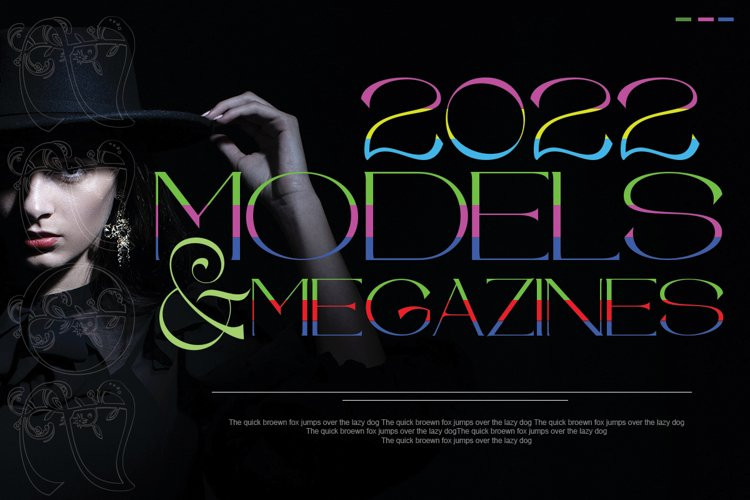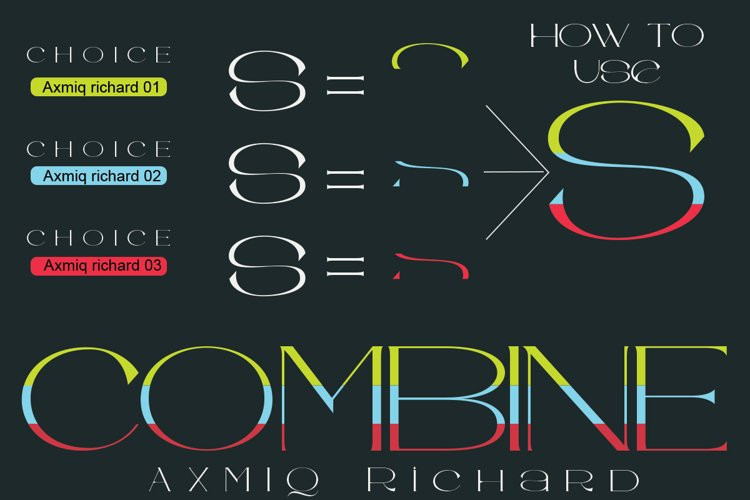
Axmiq Richard Font
Axmiq Richard FontAxmiq Richard this is a font with a very elegant and professional appearance, for those of you who are looking for luxury, don’t let you miss this one design, you can make it your best choice, with several alternative binders that can be adjusted, plus some truncated font combinations, this design to make it easier for you to make, and this will change you in creating the best work for you, and there is also a very elegant monogram that is perfect for making your logo or icon design,